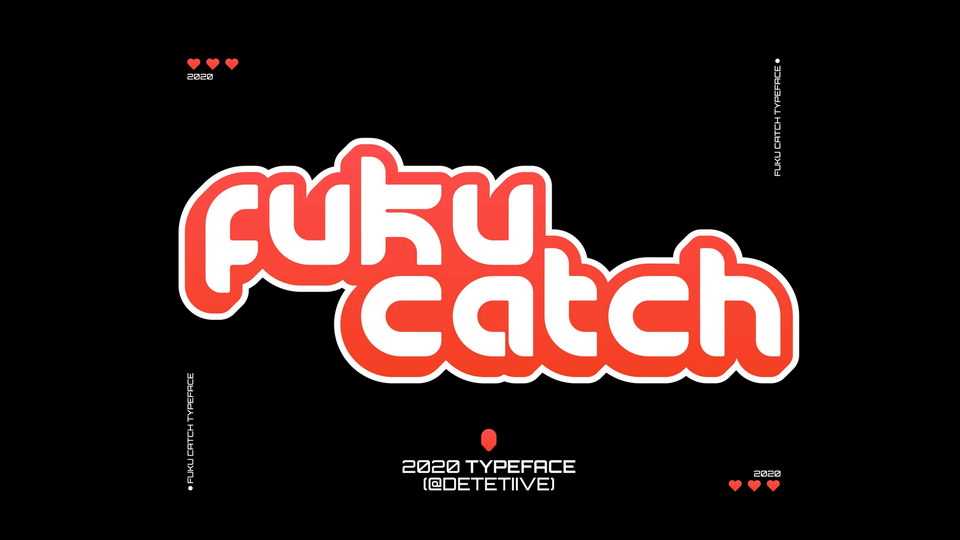
Download Fuku Catch font, a bold geometric typeface with a futuristic appearance. Fuku Catch is best for logos, branding, prints and posters.
Designer: Detetiive